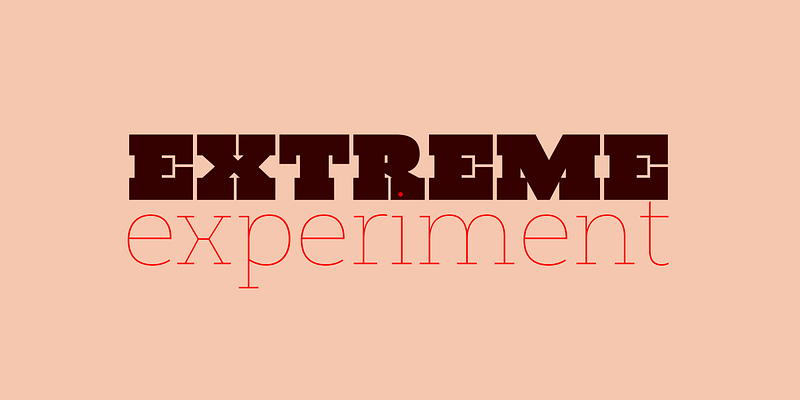
While teaching an exercise on slab serifs in 2011, designer José Manuel Urós discovered Robert Thorne’s work for Thorowgood. Fascinated by the extraordinary density of the 6-line Egyptian Pica from 1820-21, he wanted to test the limits of readability within the context of a contemporary alphabet. Rothwood Ultra is the result of this experiment. Once the initial style was in place, Josema went to the opposite end of the spectrum to evolve the DNA of the Ultra into a light weight style. Rothwood includes a wide range of weights and two optical sizes.
Type-Ø-Tones
Type-Ø-Tones is a typographic design company founded in 1990 by Joan Barjau, Enric Jardí, Laura Meseguer and José Manuel Urós. Although we mainly publish our own designs, we collaborate with many other typographers.
In our friend Jan Middendorp words: “They’re a loosely-knit collective of independent individuals, each with their own activities as graphic designers, writers and teachers. They have been making and publishing fonts since the early days of desktop type design and pioneered digital techniques that are now commonplace. Their fonts represent an approach that is, perhaps, typically Catalan: simultaneously adventurous and serious, witty and well-conceived.”